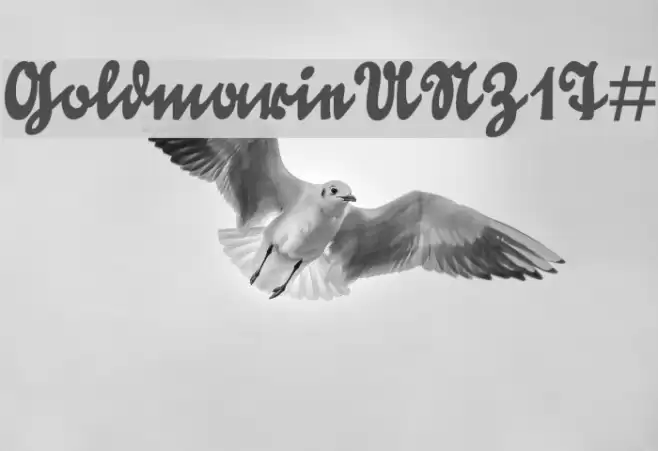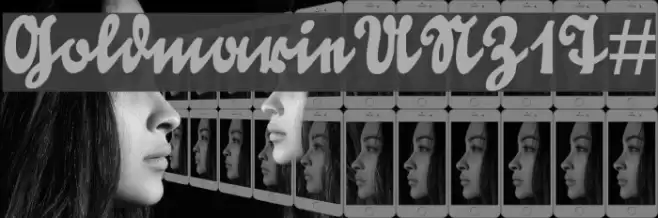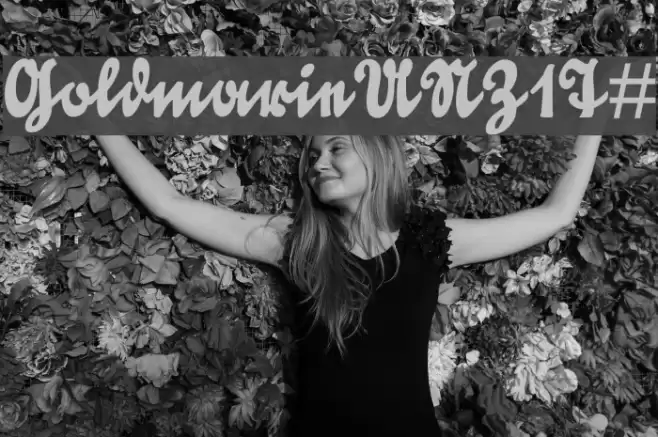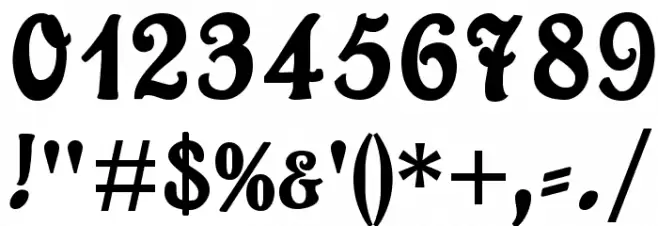
GoldmarieUNZ1T# Font
GoldmarieUNZ1T# Description
This font features a bold and expressive script style with a playful and decorative flair. The characters are interconnected with smooth, flowing strokes that create a sense of movement and elegance. The uppercase letters are ornate, with intricate loops and swirls, while the lowercase letters maintain a consistent flow, enhancing readability. The numerals are equally stylized, maintaining the overall aesthetic of the font. Special characters are designed to match the decorative style, making this font suitable for creative and artistic projects.
A bold, decorative script font with flowing, interconnected characters from Uncategorized fonts.
- Character Spacing: Tight